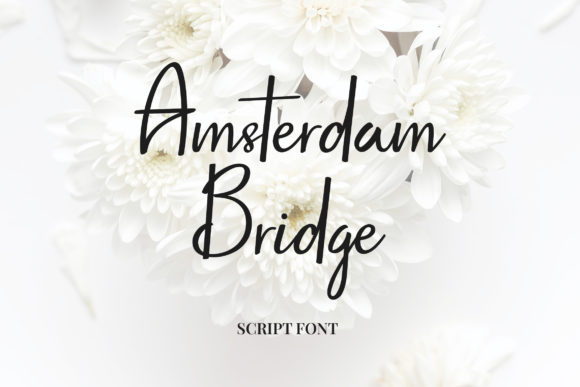
Dive into the world of sophistication and elegance with Amsterdam Bridge Font, the exquisite script font designed to leave a lasting impression. Step into a realm where creativity flourishes, and your projects shimmer with an enchanting touch.
Amsterdam Bridge beckons you with its smooth, flowing curves, reminiscent of a gentle dance on a moonlit night. Each letter pays homage to the beauty of cursive writing, evoking a timeless charm that will elevate your designs to new heights.
Picture yourself creating wedding invitations that whisper romance and timeless elegance. Envision promotional posters and advertisements that pop with a touch of sophistication. Let Amsterdam Bridge accompany your fashion branding efforts, adding a dash of glamour and luxury to your creations.
With Amsterdam Bridge, the possibilities are endless. Unleash your imagination and watch as your projects transform into masterpieces. Its versatility extends from editorial designs to social media graphics, ensuring that your message shines brightly, captivating audiences with its refined allure.
Don't settle for ordinary fonts when you can embrace the extraordinary. Add Amsterdam Bridge to your toolkit today, and let your creativity soar. Experience the magic of this script font as it adds a touch of magic to your work, turning heads and leaving a lasting impression.